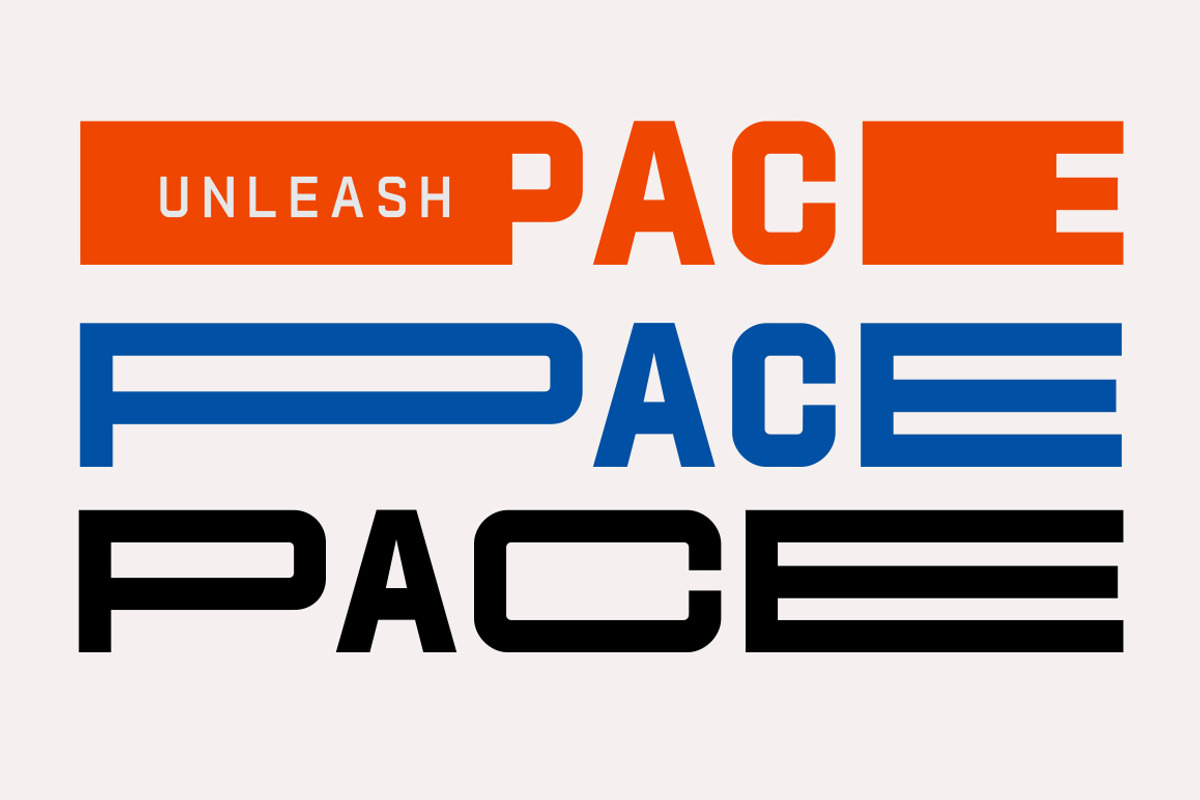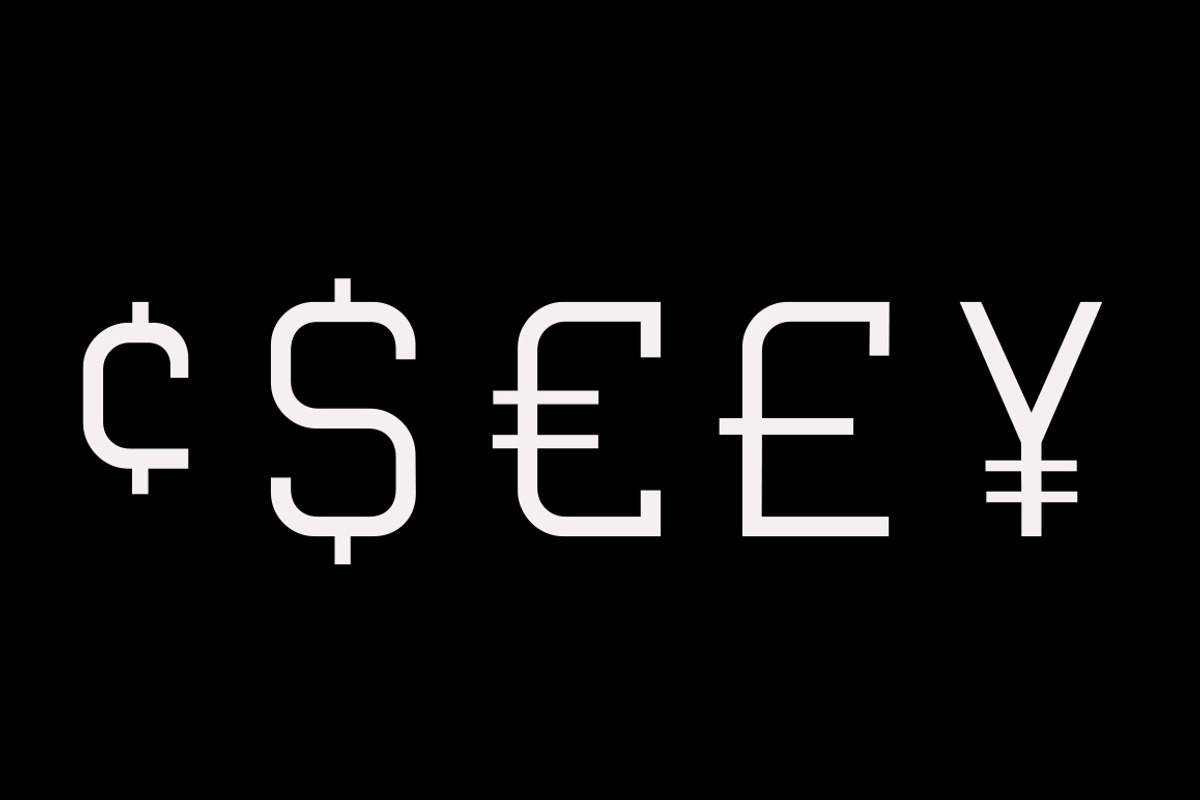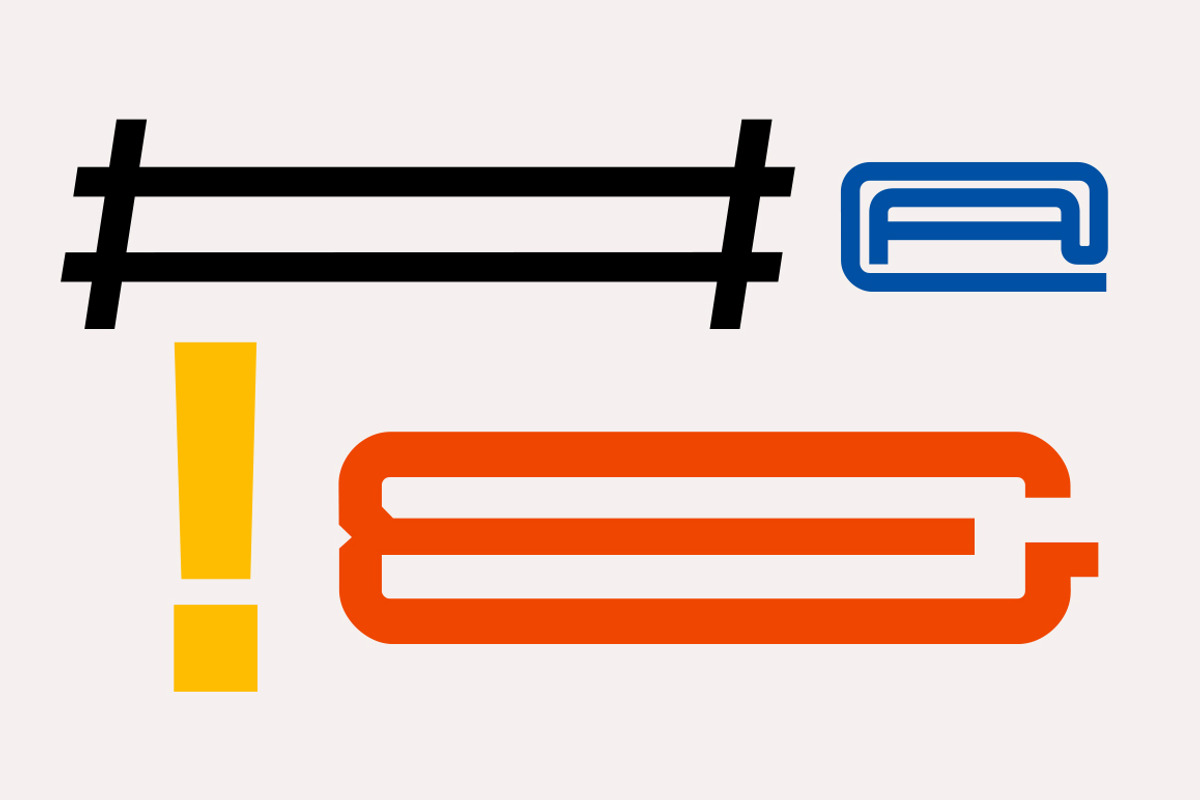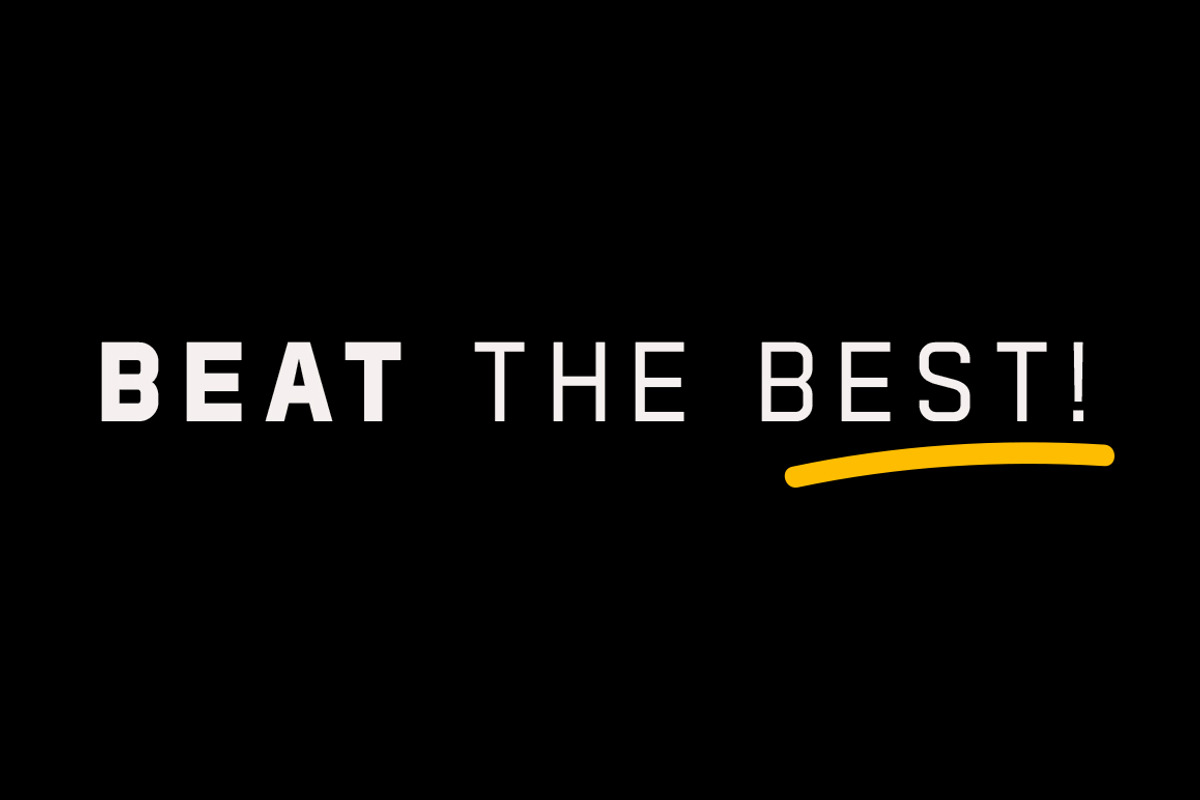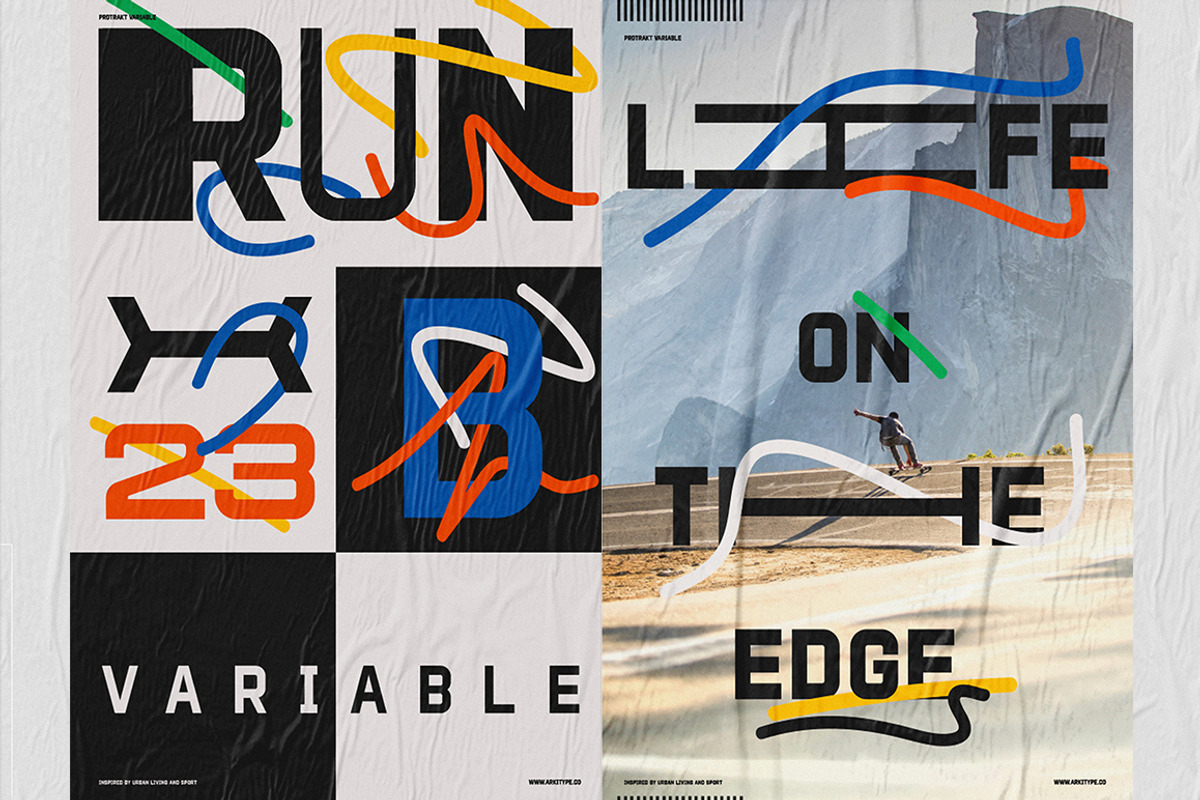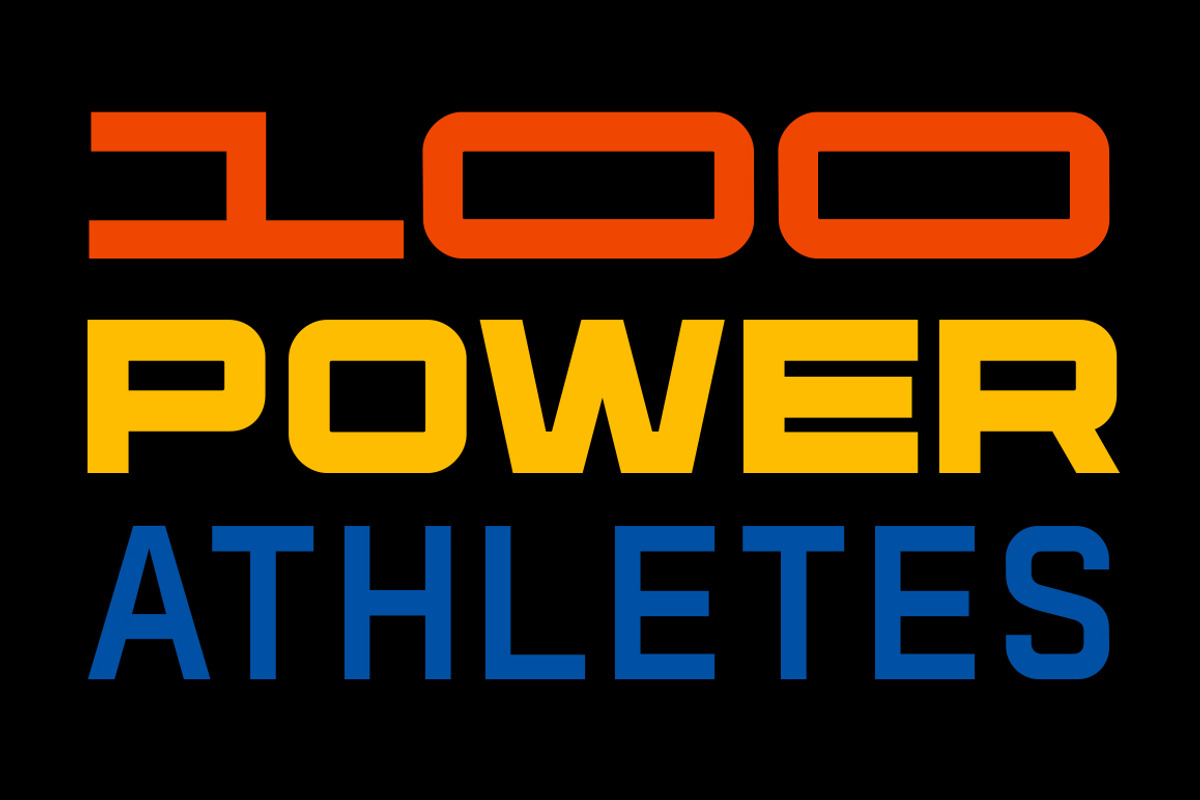
Protrakt Variable
Protrakt is inspired by city life and sport. It has been designed as a variable font and should be used in as a variable font to get the full enjoyment of using this typeface.
However, if you do not have access to variable technology through your software, there are nine widths in the font family so this will give you just as much access to the creativity this font can provide.
By using the variable sliders in your design software you have a range of weight and width options. Play around with individual letters to give your type a unique look. Variable fonts allow for greater flexibility when it comes to typography whether it is for print or web.
Included in this family are alternate characters to add even more styling options.
By using the variable version you only need to install one font file instead of the entire family, this saves space and time to manually select individual styles.